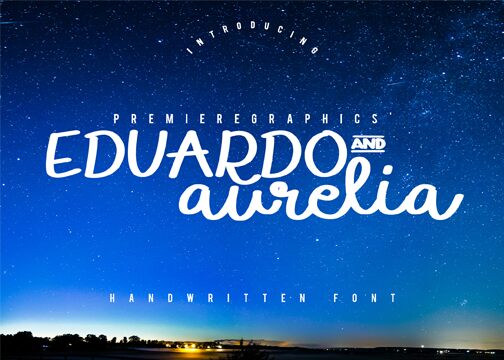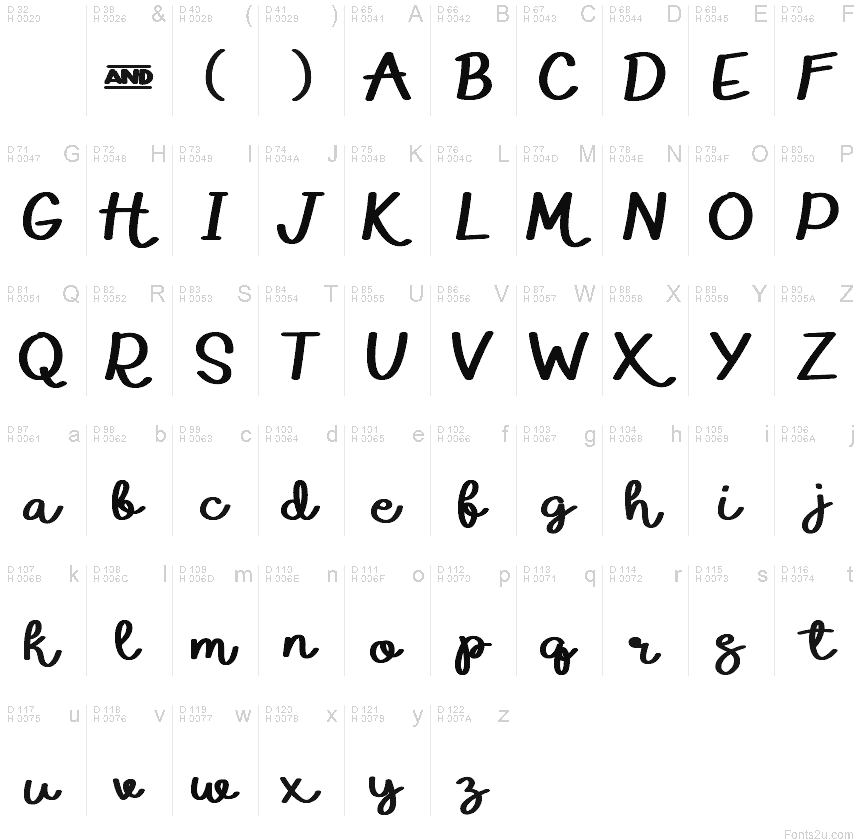
EDUARDO & aurelia
Eduardo and Aurelia is one extraordinary typeface. Whether you are a designer or a poet, this is perfect for anything. Its LOWERCASE and UPPERCASE are carefully designed to have equal and unique style. If you are a person who likes capitals or a person who likes small letters, Eduardo and Aurelia is for you!